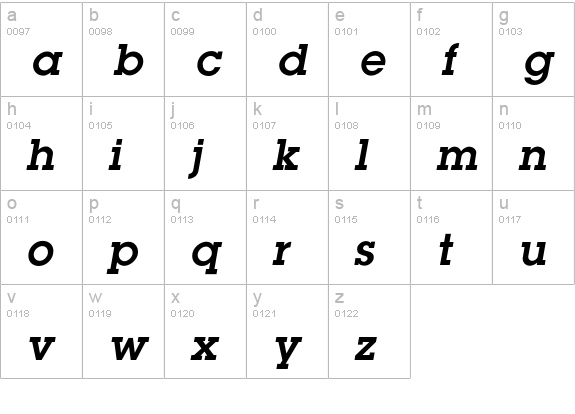
LubalinDemiOblique Font Details
LubalinDemiOblique is a stylish and versatile font that effortlessly combines classic elegance with a modern twist. Its oblique design adds a dynamic and eye-catching element to any text, making it perfect for a wide range of design projects. The sleek curves and sharp angles of this font create a sense of sophistication and refinement that is sure to make your work stand out. What sets LubalinDemiOblique apart is its unique blend of traditional typography with a contemporary edge. Whether you're designing a logo, crafting a headline, or creating a poster, this font is sure to make a bold statement. Its versatility allows it to be used in a variety of settings, from sleek digital designs to elegant print materials. Best of all, LubalinDemiOblique is completely free to download at FontsMarket.com. This means that you can access this stunning font at no cost, making it a valuable addition to your design toolkit. Don't miss out on the opportunity to elevate your projects with the striking beauty of LubalinDemiOblique. Download it today and see the difference it can make in your designs!